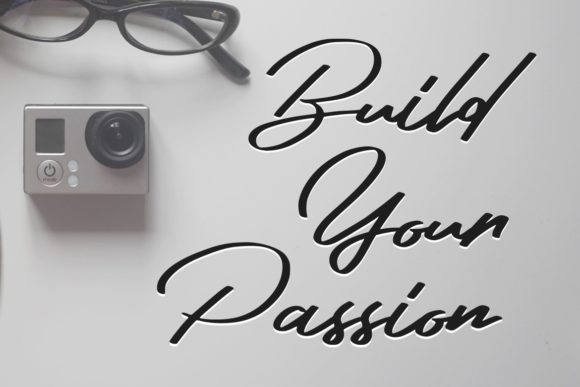
Hakim Font
About Hakim Font
Hakim is an elegant handwritten font perfect for projects such as logos, invitations, t-shirt designs and much more.Give your next design a touch a unique luxurious feel.